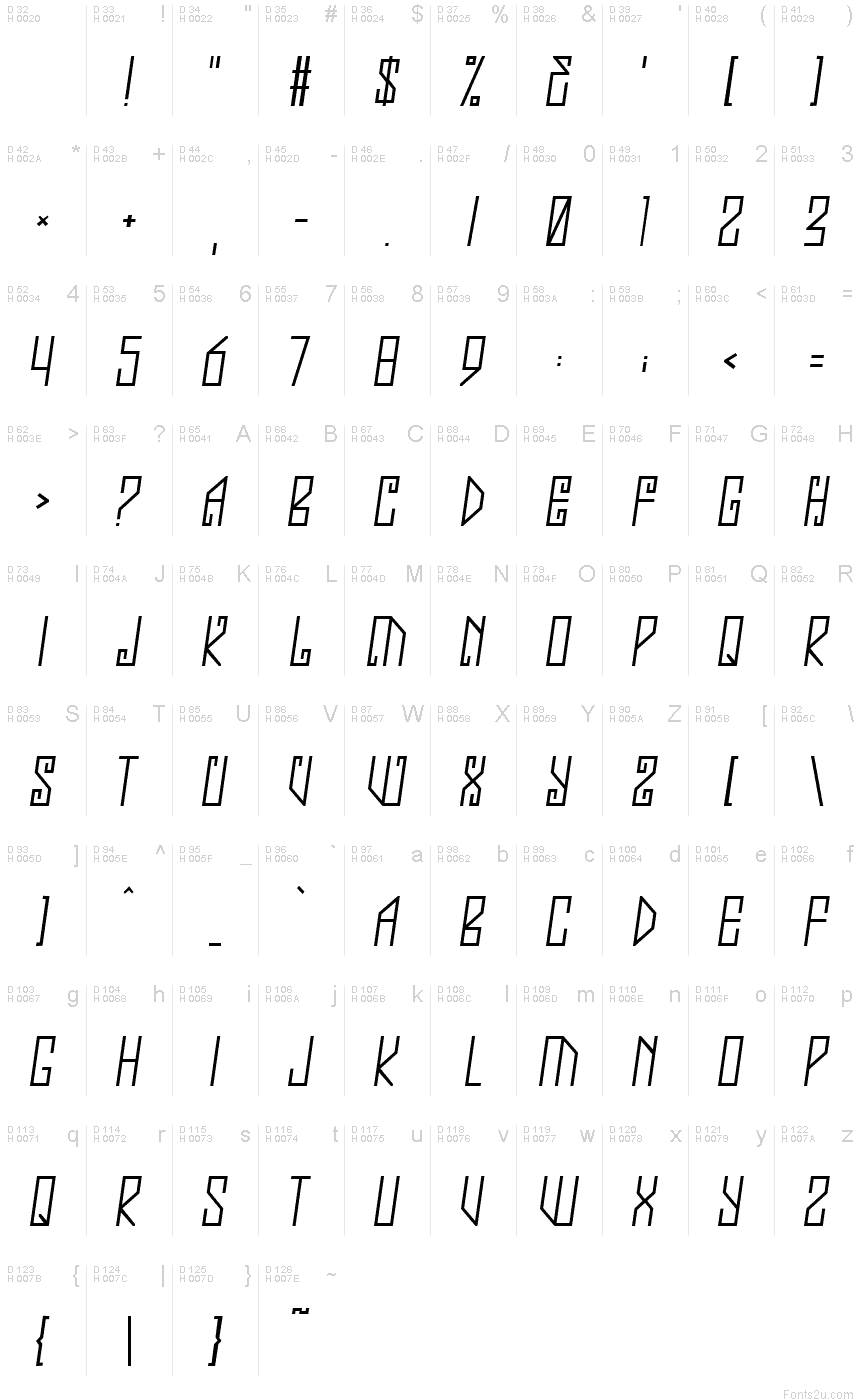
Jealousy
Jealousy font by Jakob Fischer is a free techno display typeface with a sharp, restless energy. Tall, blade-like letters lean forward as if they’re racing off the page, while the jagged inner cuts and tight spacing give every word a charged, electric feel. The result is a look that feels mechanical and hand-tuned at the same time—clean lines, but with a slightly unruly attitude.
Using Jealousy, your text instantly feels like a title sequence: it shines on sci-fi posters, electronic music covers, esports logos, futuristic game titles, and high-impact event flyers. This free font also works beautifully in motion graphics or stream overlays where you want text to feel fast and aggressive. For balance, pair Jealousy with a simple geometric sans at smaller sizes, letting its angular forms command the headlines.